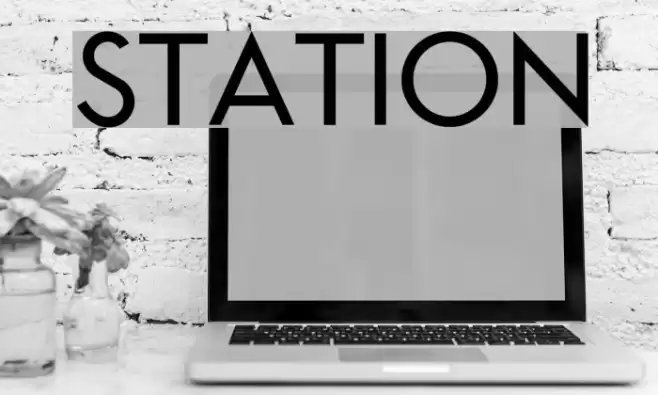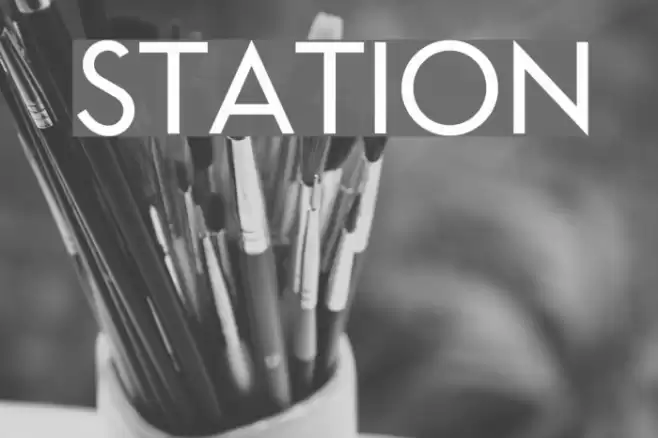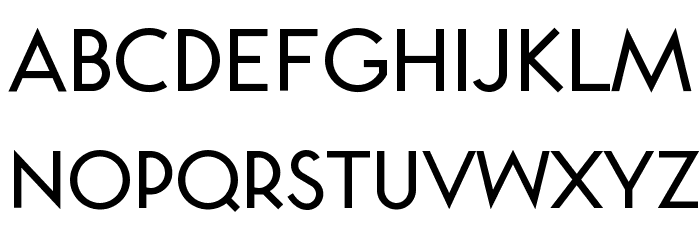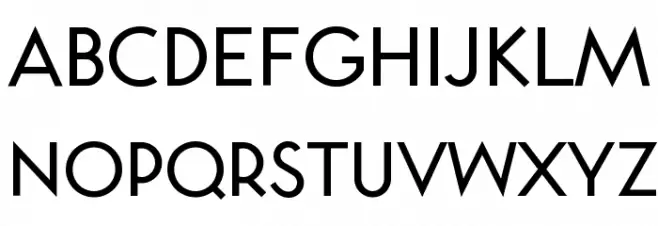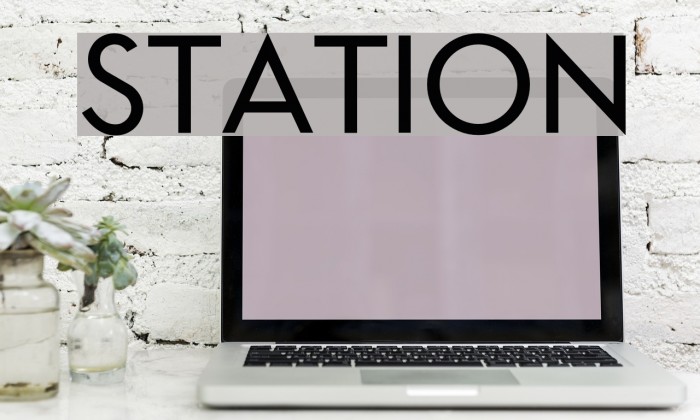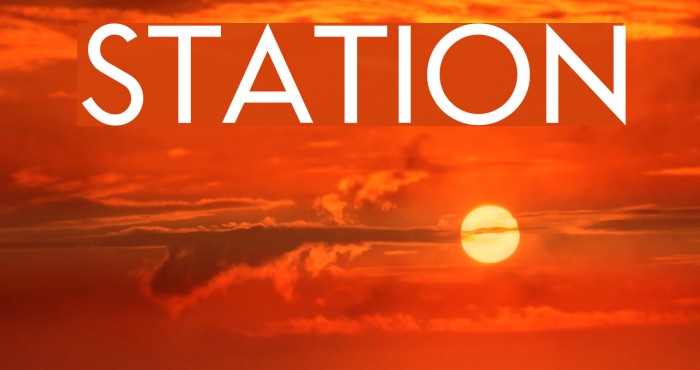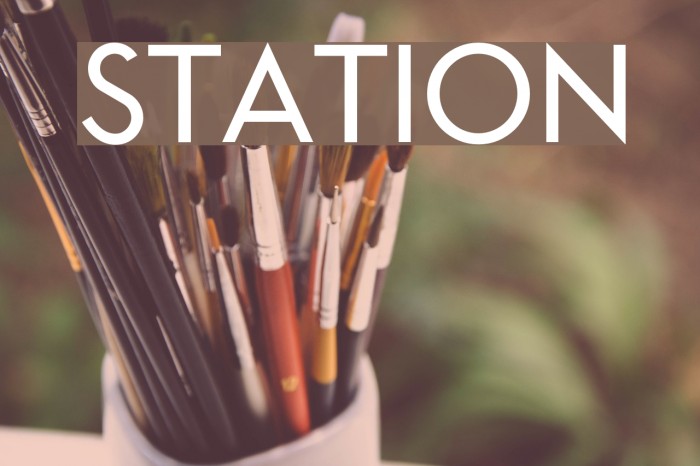
Station Font
Station Description
A geometric sans-serif typeface with clean, uniform strokes and minimal contrast, featuring circular letterforms and consistent proportions. The characters are evenly spaced, with a modern and straightforward appearance.
Geometric sans-serif font with clean lines and modern style from Uncategorized fonts.